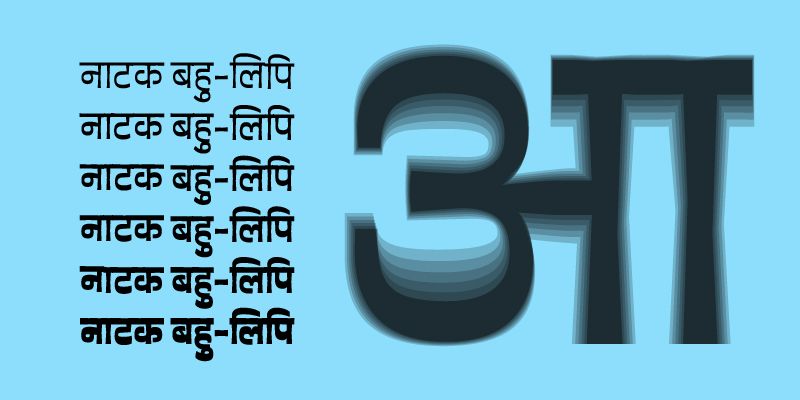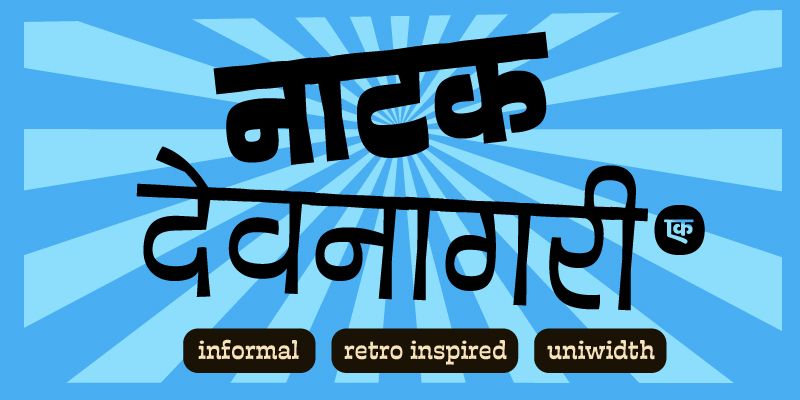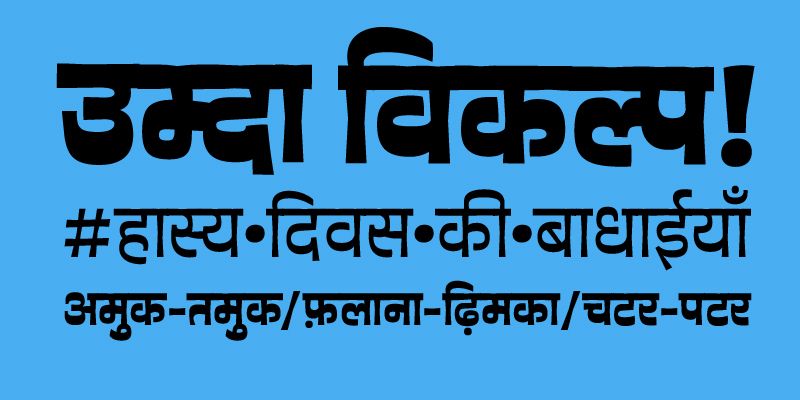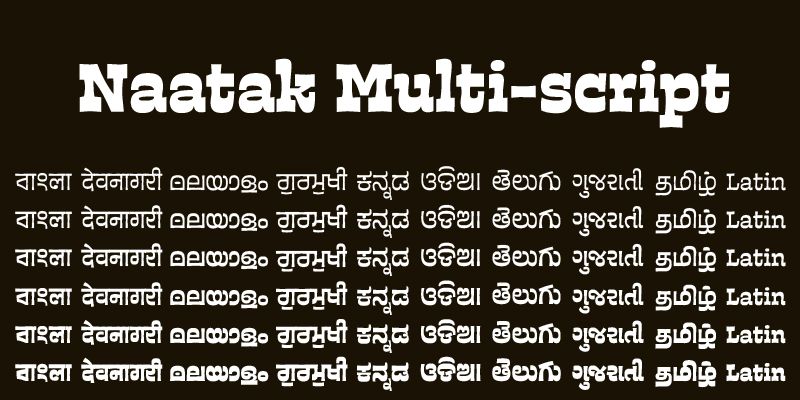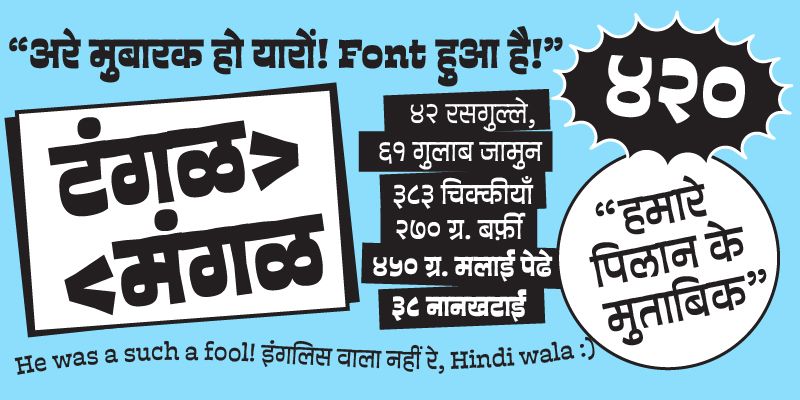
Naatak is an informal, retro-inspired, uni-width type family, influenced by local street lettering, handwritten comics, and book titles. It’s playful nostalgia is captured in its unpolished curves, intentional irregularities, and a striking horizontal stress. The heavy weights are ideal for headlines, while lighter weights suit taglines and comic blurbs.